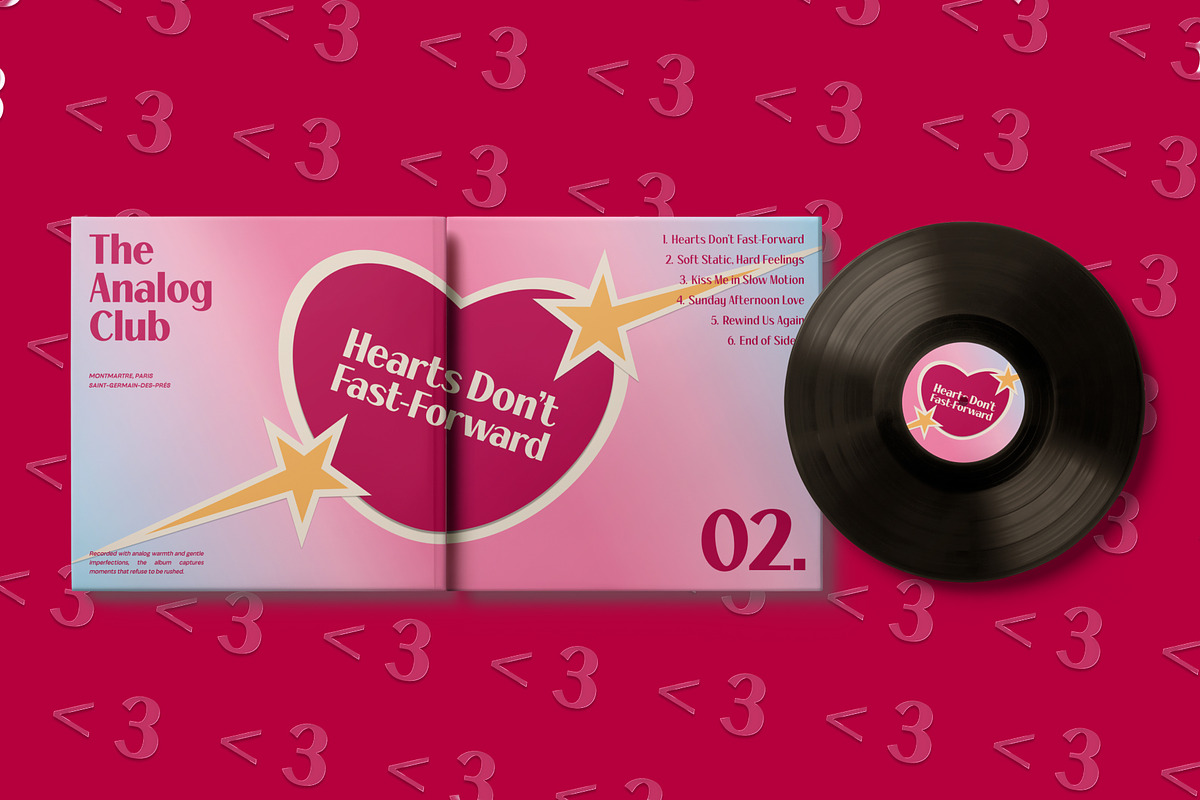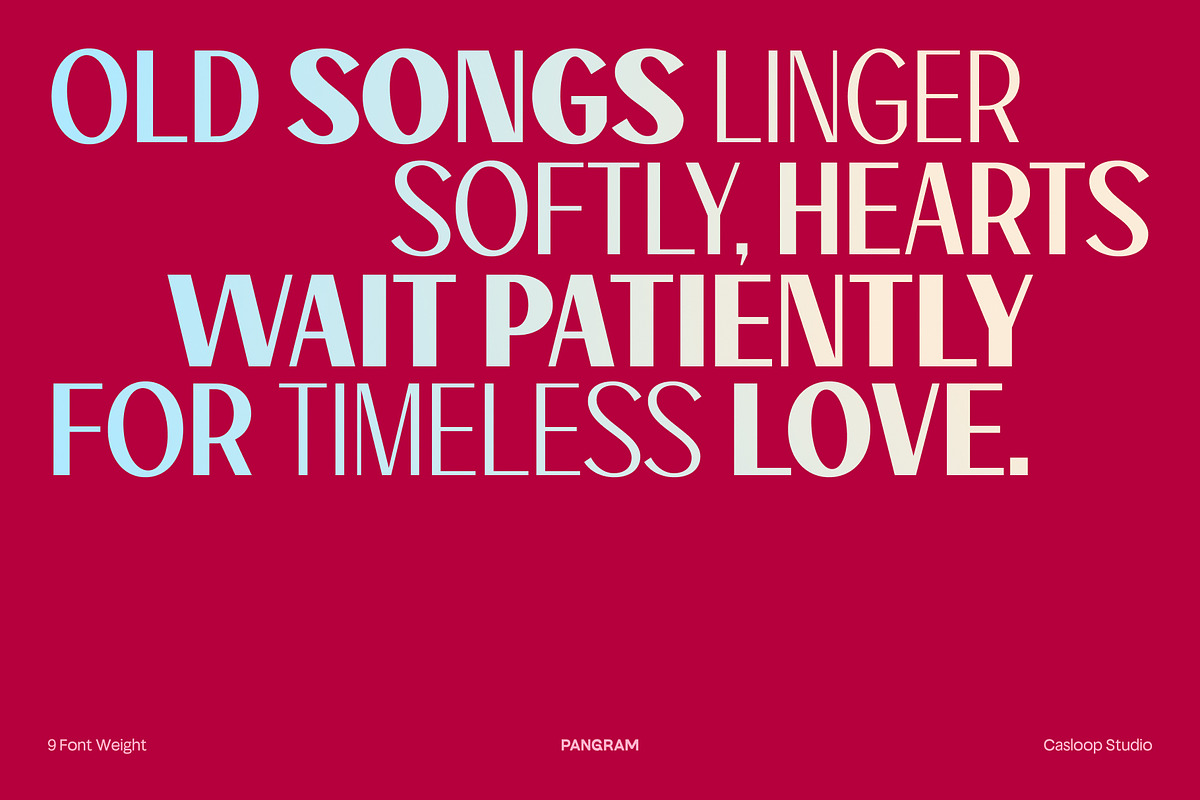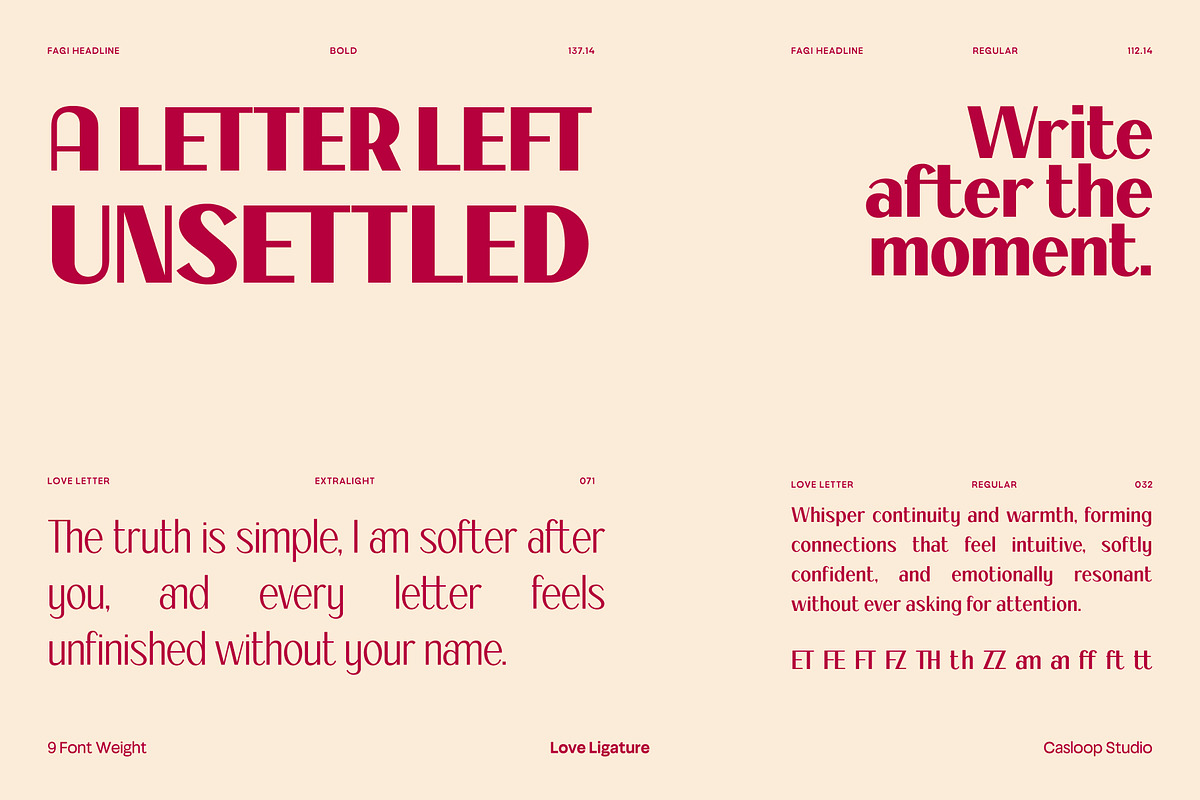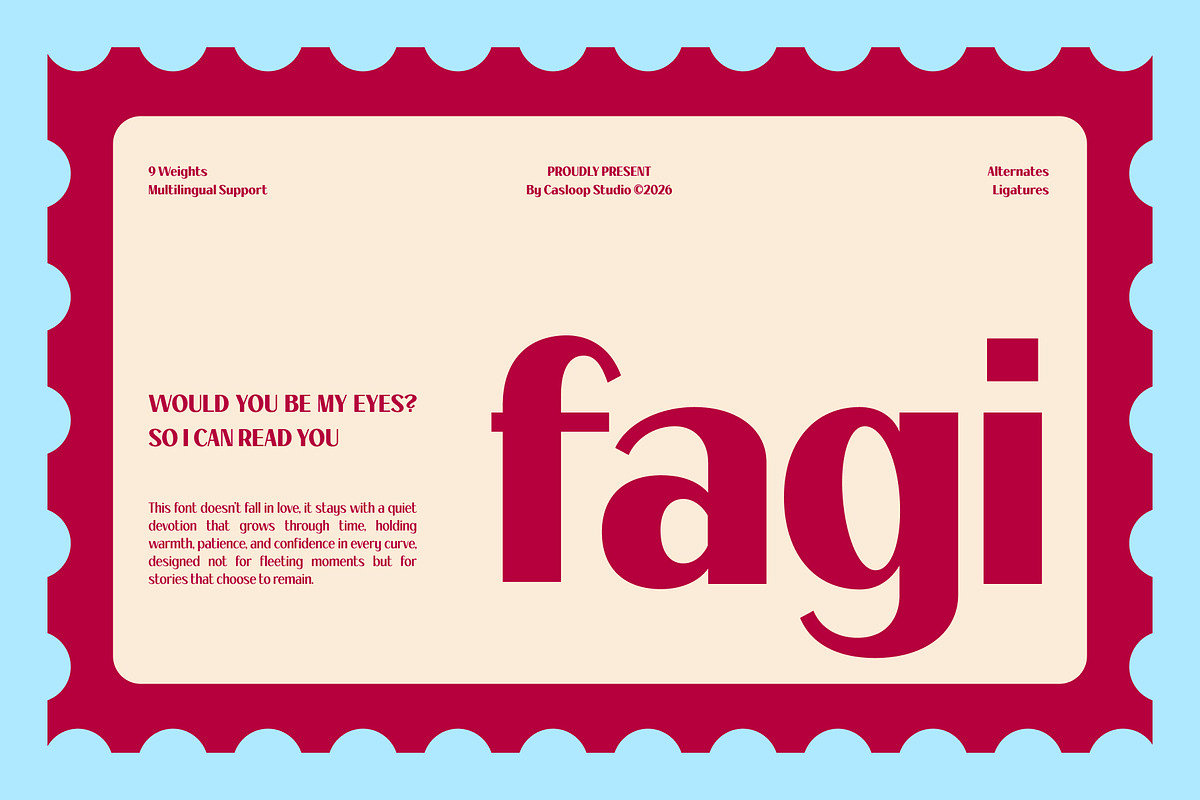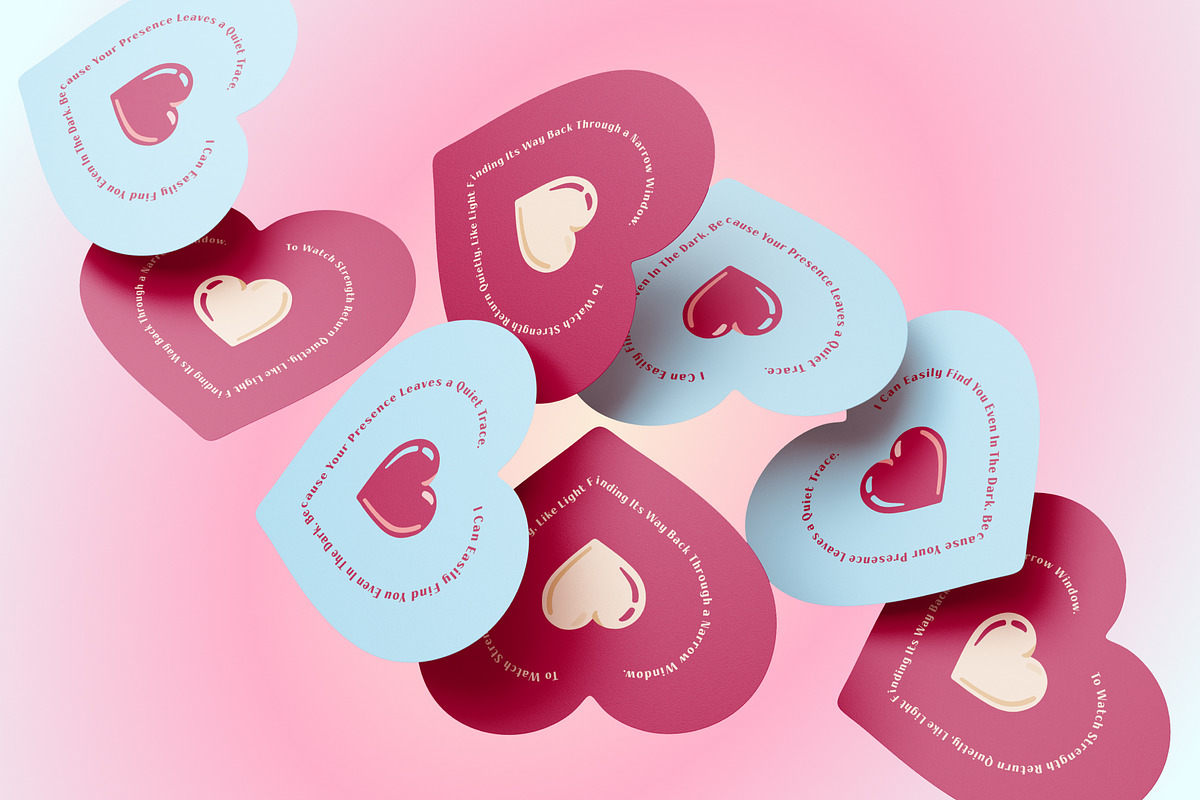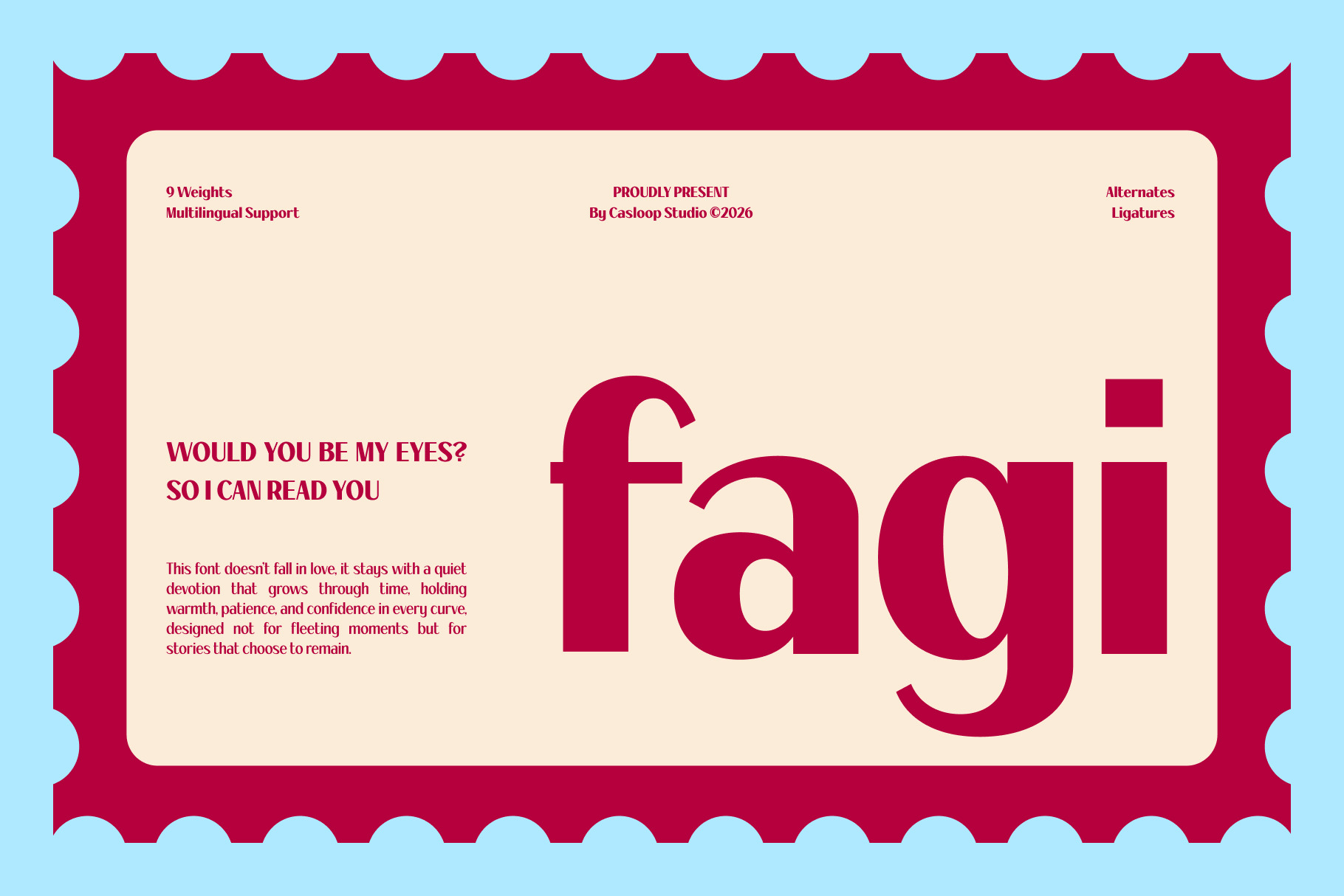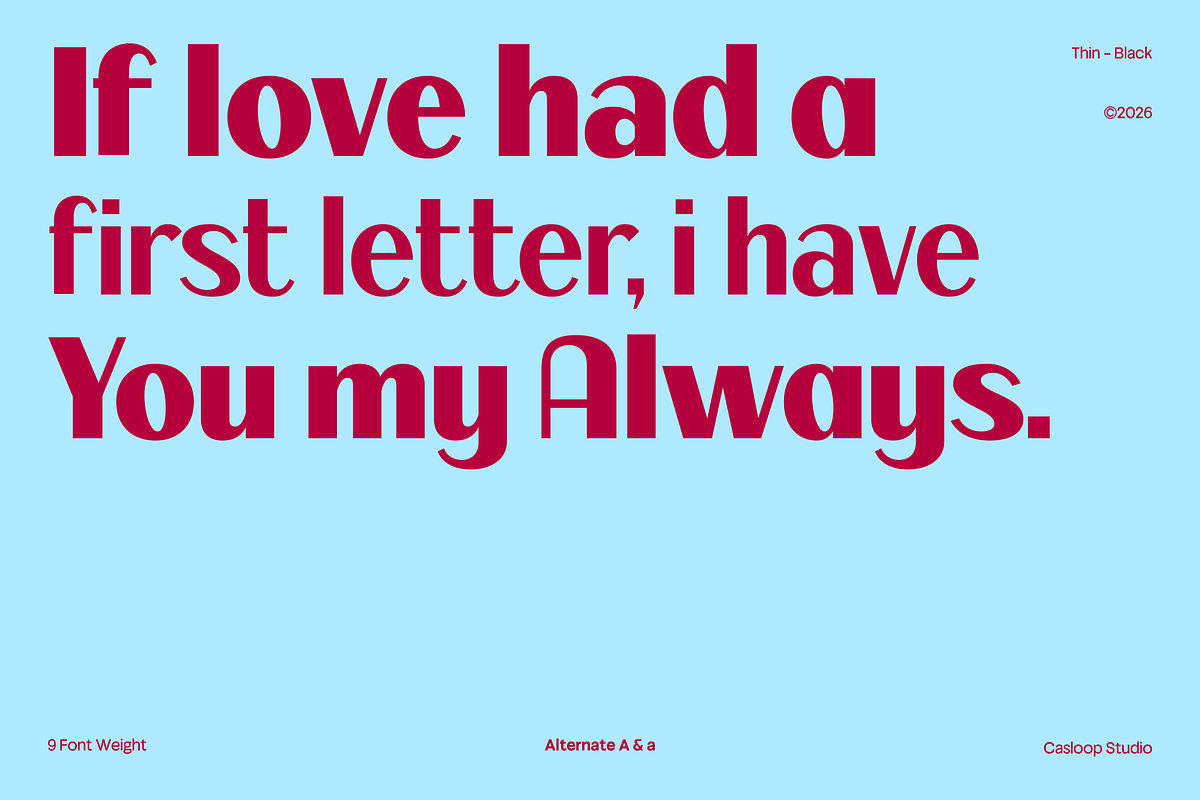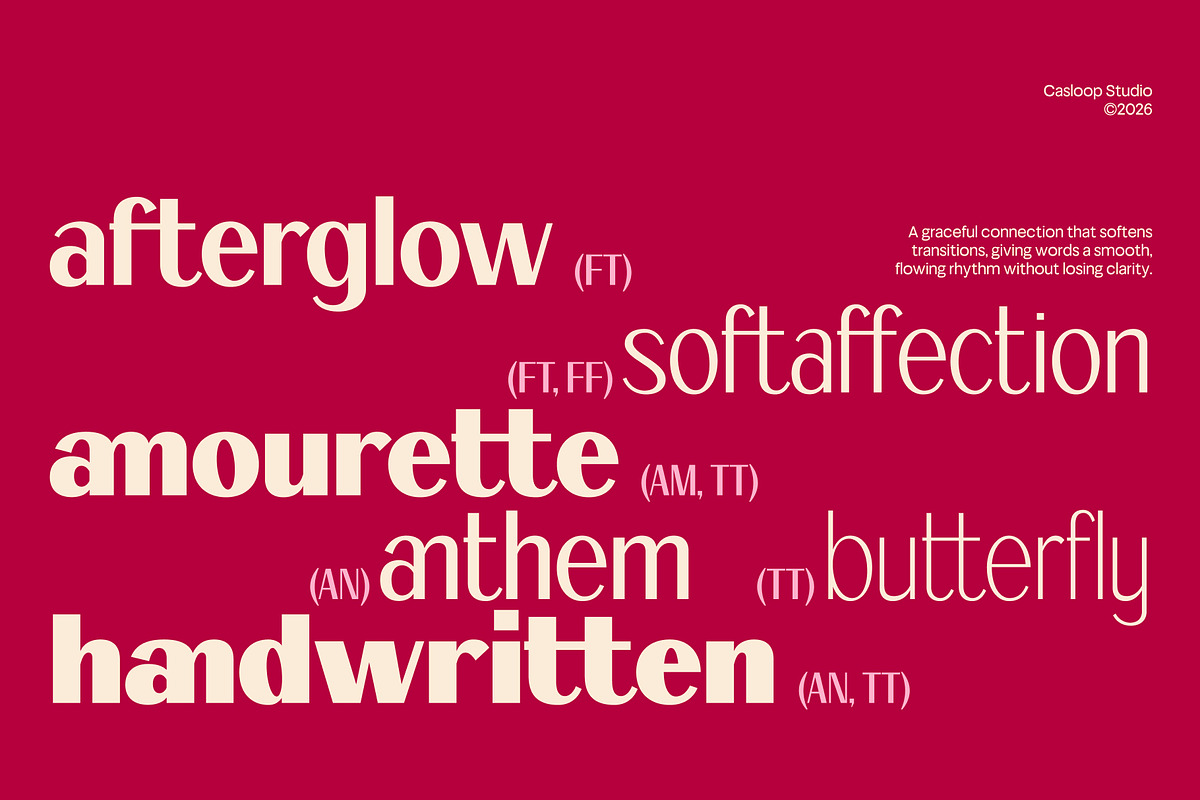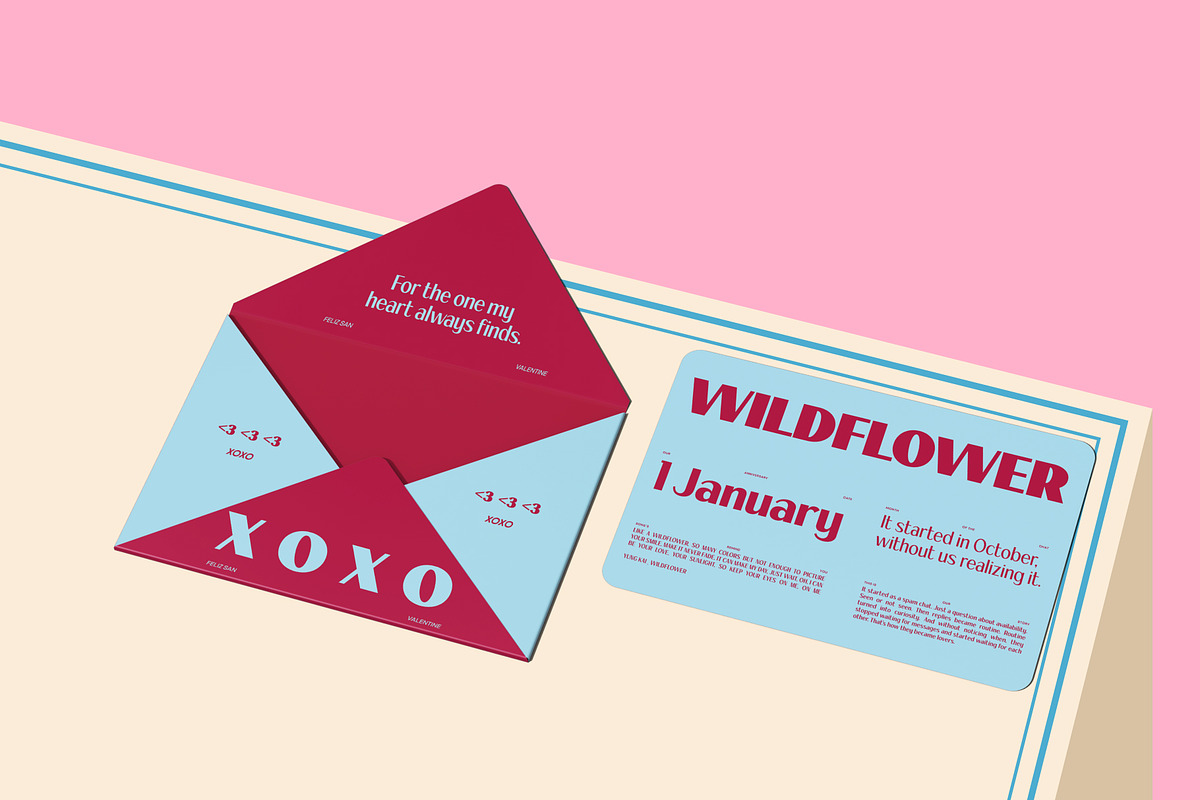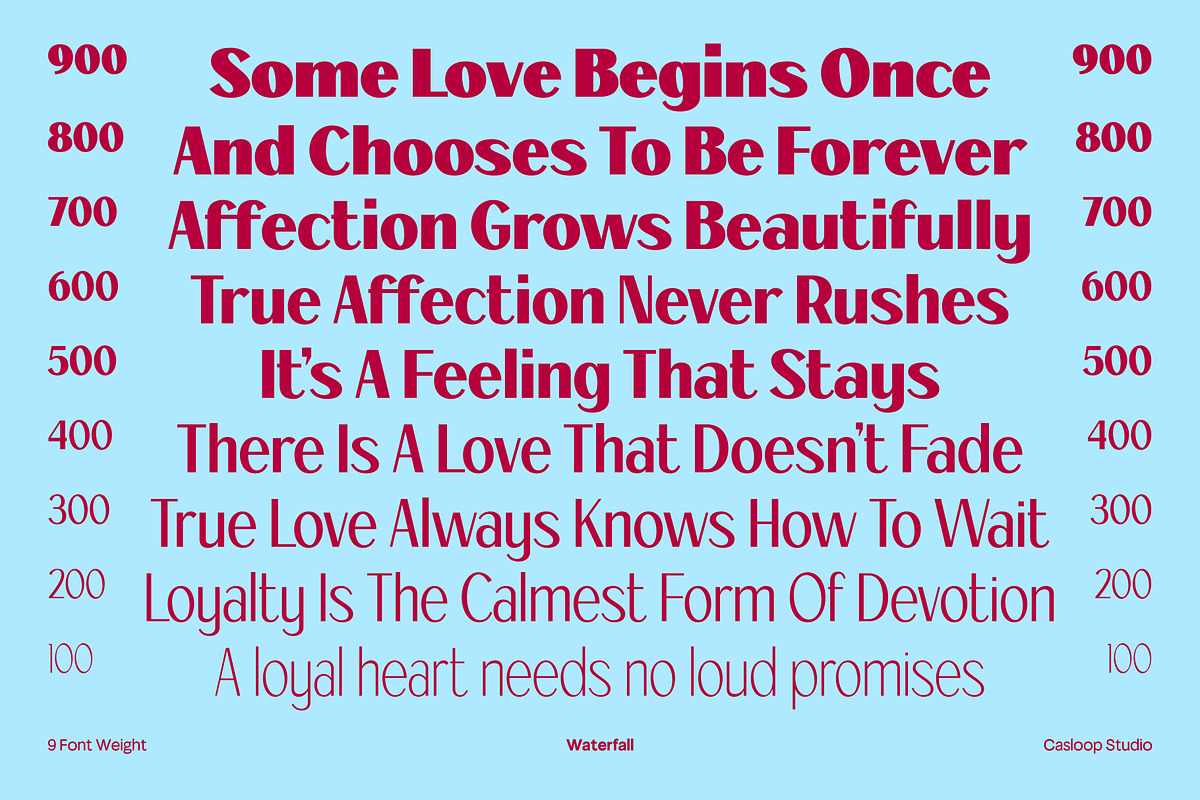
Fagi – Classic Valentine Serif Font
⸻Fagi is a classic Valentine-inspired serif font that blends retro charm with refined elegance, designed for projects that value subtle confidence over loud expression. Its key characters A, R, S, G, and W are carefully crafted with balanced openings, gentle curves, and a stable structure, creating a typographic personality that feels mature, loyal, and quietly luxurious. With its calm rhythm and graceful weight range, Fagi is ideal for logos, editorial layouts, food branding, Valentine campaigns, and premium designs that seek a timeless, old- money aesthetic built to last. Recommended pairing with: Playfair Display, Cormorant Garamond, Libre Baskerville, Didot, Garamond, Baskerville
- Ligatures & Stylistic Alternates Characters
- Multilingulal Support : Bosnian, Catalan, Czech, Danish, German, English, Spanish, Estonian, Finnish, French, Irish, Croatian, Hungarian, Icelandic, Italian, Lithuanian, Latvian, Dutch, Norwegian, Polish, Portuguese, Romanian, Slovak, Slovenian, Albanian, Swedish, Turkish.